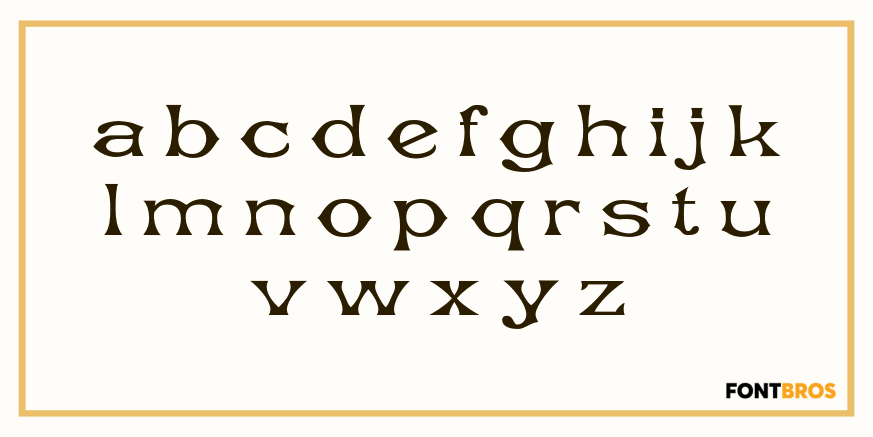
Concave Extended
Font Family by Solotype
Many foundries had versions of Concave ? wide, narrow, extra condensed, some with lowercase, some without. A good general utility style for Victorian typography.